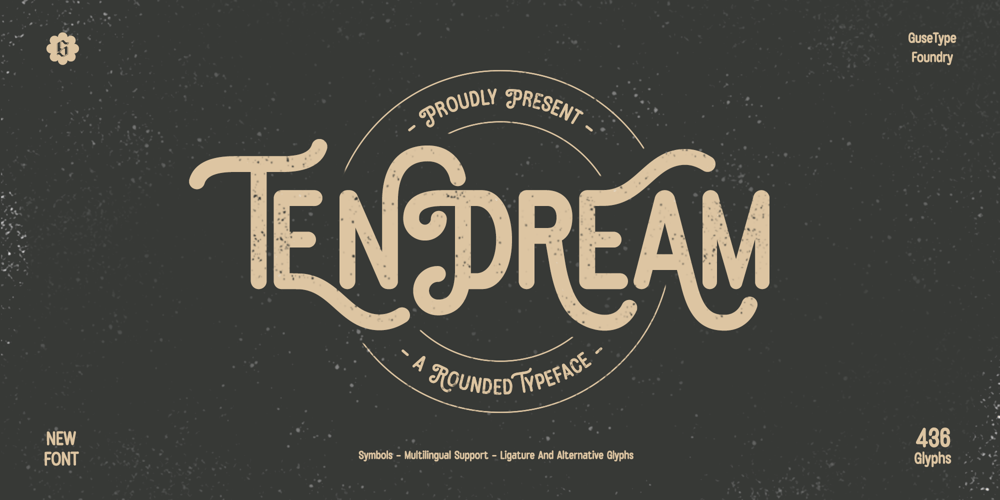
Tendream Font Family was designed by Guntur Septyan and published by GuseType. Tendream contains 1 styles and family package options. Tendream font is a display rounded sans-serif typeface. Discover the perfect blend of playfulness, beauty, and vintage charm with Tendream. This unique typeface features curvy alternate characters that add a touch of whimsy to any project you work on. Whether you’re designing logos, posters, banners, magazines, brochures and more. Tendream brings a delightful and nostalgic feel. Its versatile style ensures it stands out while maintaining a timeless appeal.Tendream has any features like alternate characters, ligatures, numbers, symbols, multiple language support.Thank you for coming.